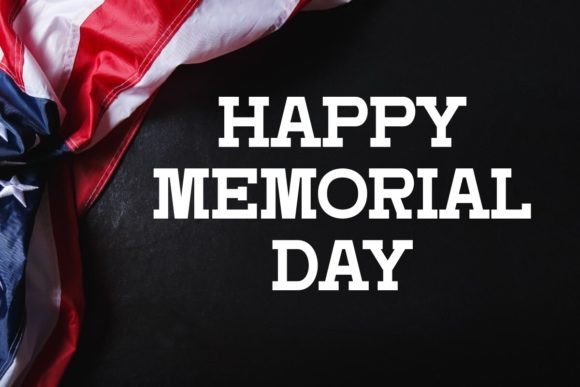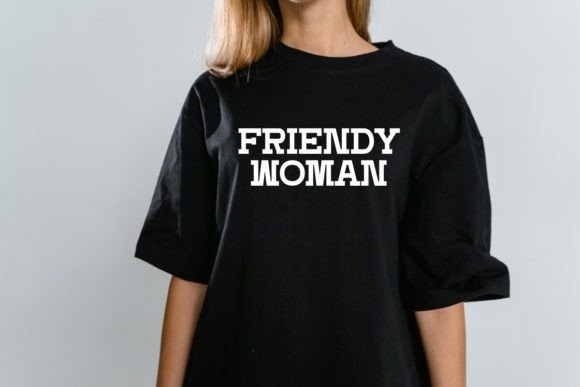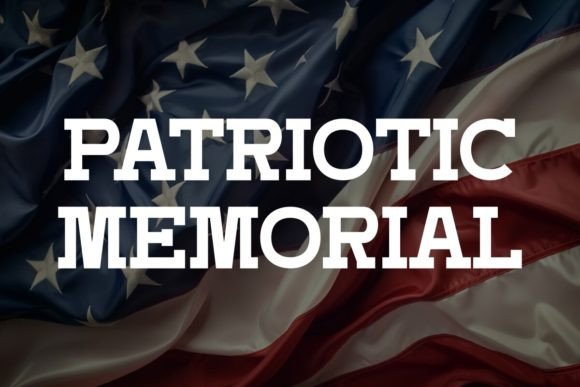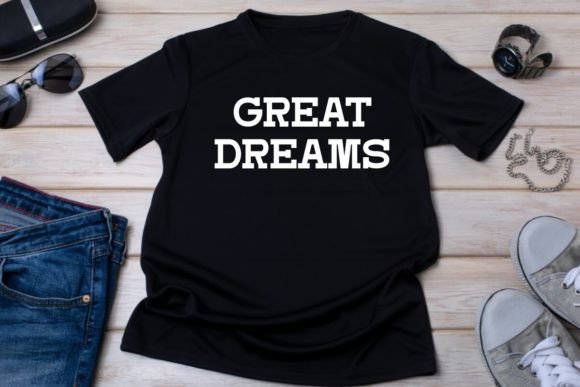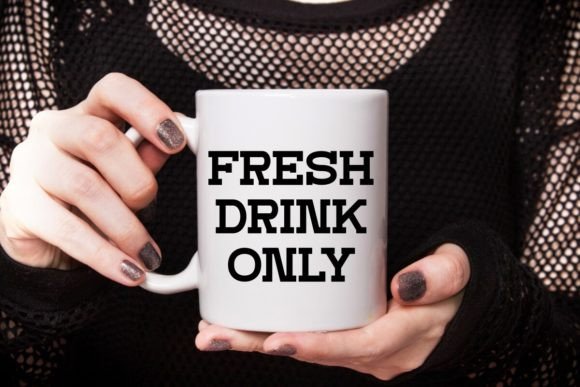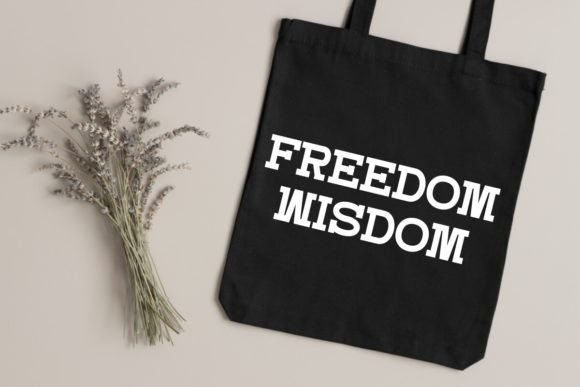
Introduction to Memorial Vintage Font
Memorial Vintage is a modern and clean slab serif font designed to bring a touch of elegance and clarity to your creative projects.
This font perfect for quotes, backgrounds, posters, t-shirts, mugs and tote bags .
Key Features of Memorial Vintage Font